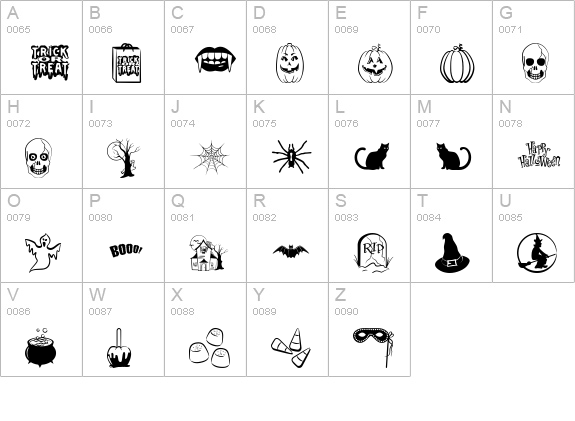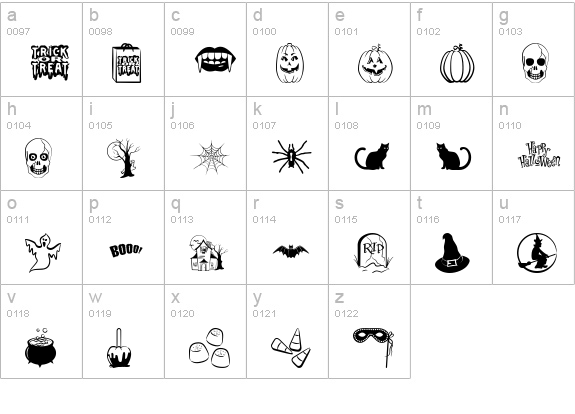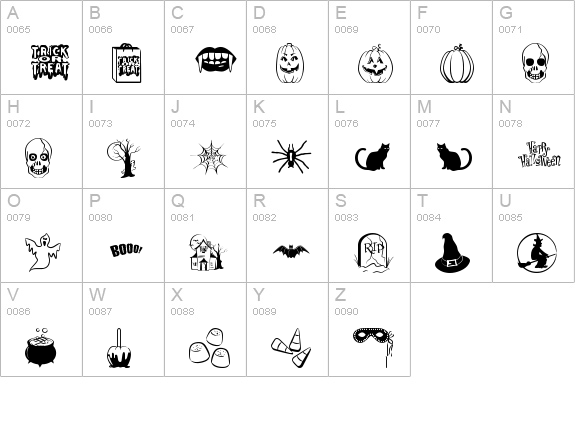
Trick or Treat BV font is a spooky and playful typeface that perfectly captures the essence of Halloween. With its bold and eye-catching design, this font is sure to bring a festive and fun vibe to any project. Each letter is adorned with intricate details and spooky elements, creating a truly unique and mesmerizing look. What sets Trick or Treat BV font apart is not only its captivating design, but also the fact that it is free! Yes, you read that right. This incredible font is freely available to download at FontsMarket.com. You can now add a touch of Halloween magic to your designs without spending a dime. Whether you are creating party invitations, posters, banners, or any other Halloween-themed project, Trick or Treat BV font is the perfect choice. Its versatility allows it to be used in a variety of contexts, from spooky decorations to playful designs. The font's bold and distinct style will surely make a lasting impression on anyone who sees it. Download Trick or Treat BV font today from FontsMarket.com and get ready to unleash your creativity. With this free font at your disposal, you have the power to create captivating and memorable designs that will leave everyone spellbound. Don't miss out on this opportunity to add a touch of Halloween flair to your projects. Get Trick or Treat BV font now and let the Halloween festivities begin!